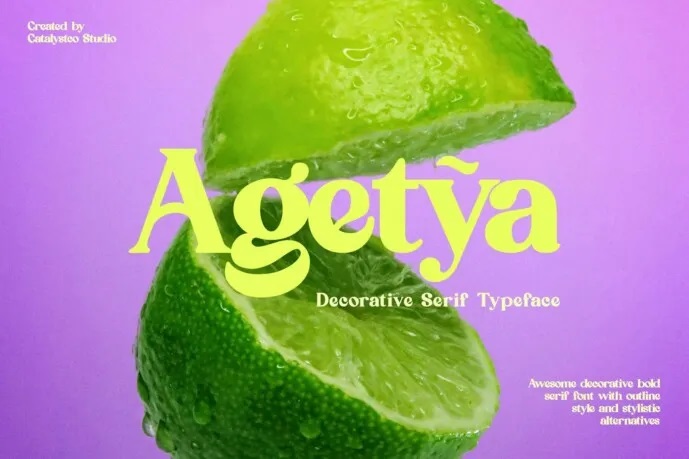
Agetya Font
Agetya Font – Decorative Serif typeface is excellent for making quotes, texts, logotypes, magazine headers and many more. The free version provides all uppercase and lowercase letters and a few special characters too.
Agetya Serif Font